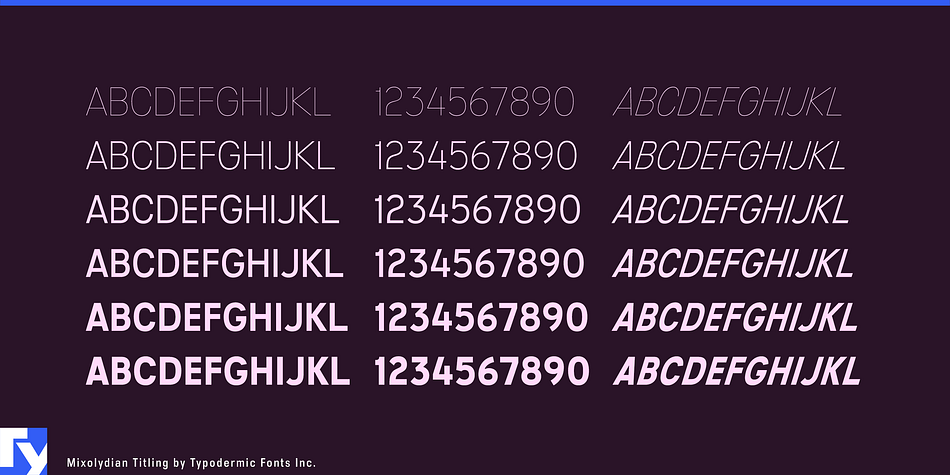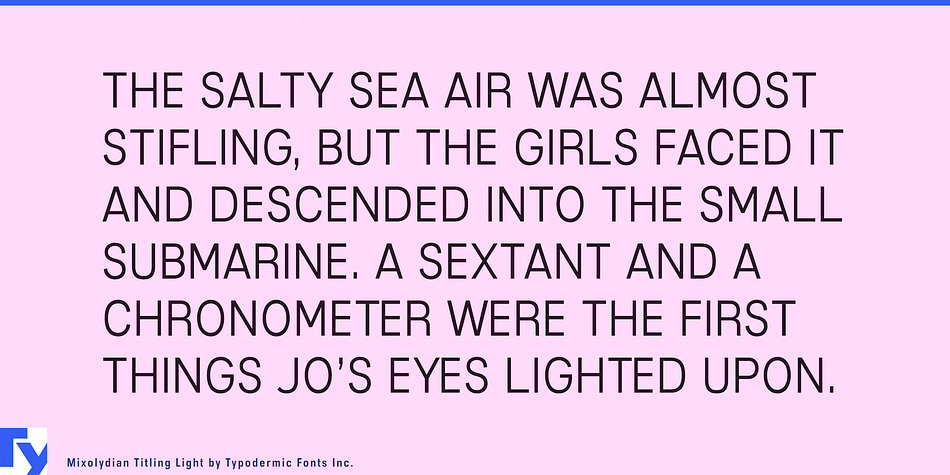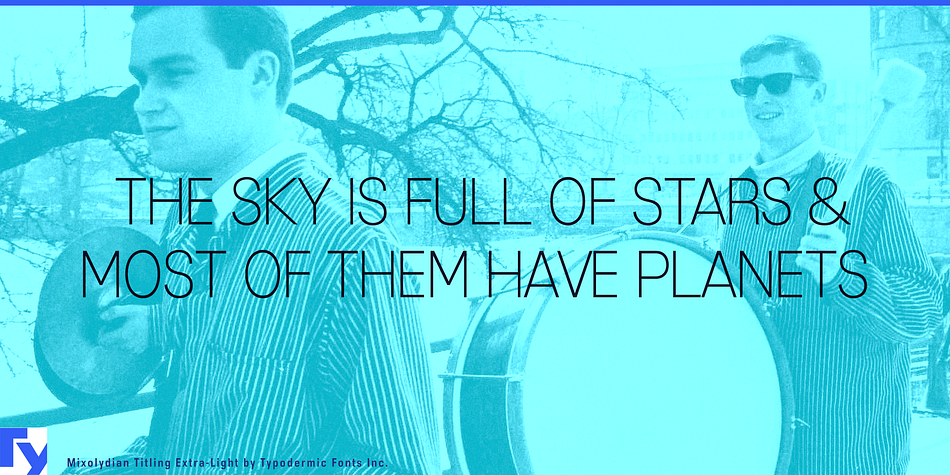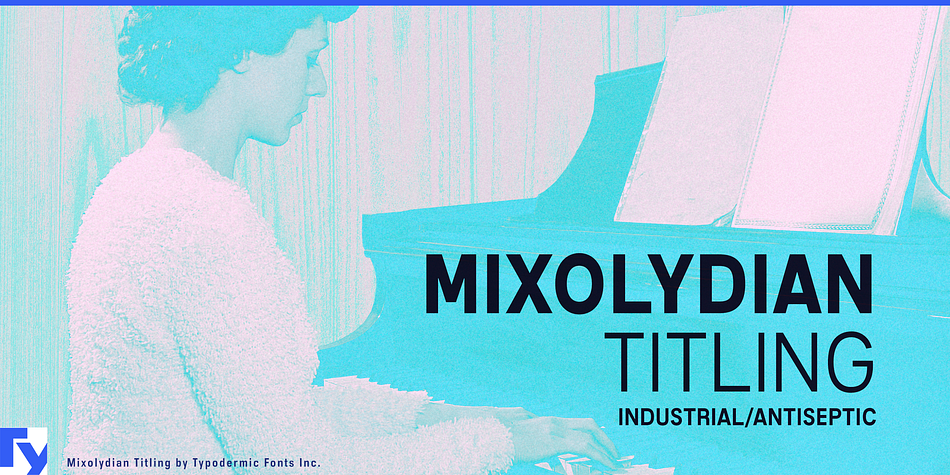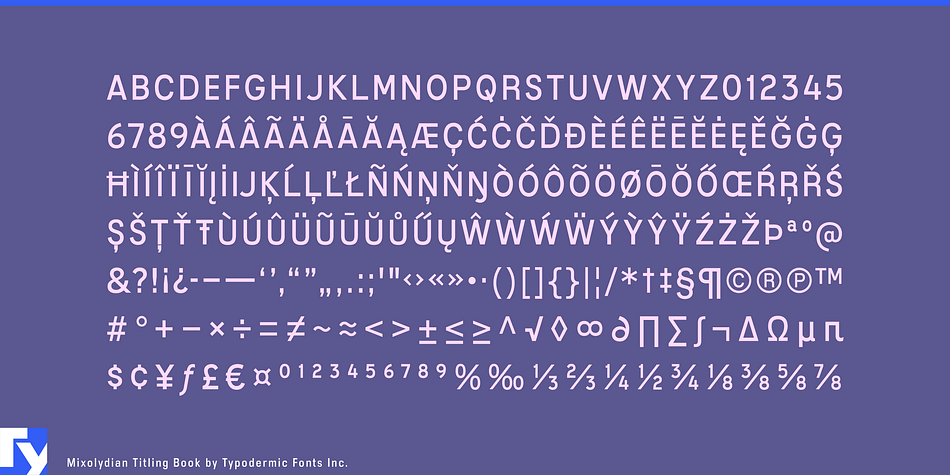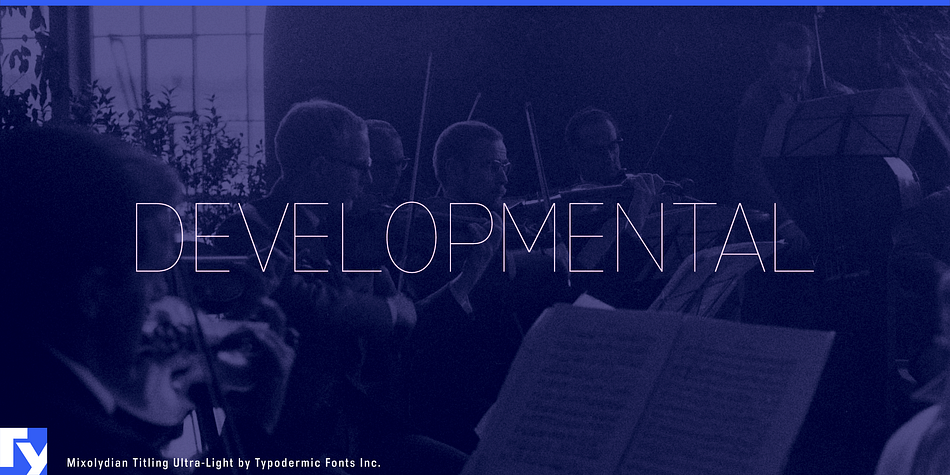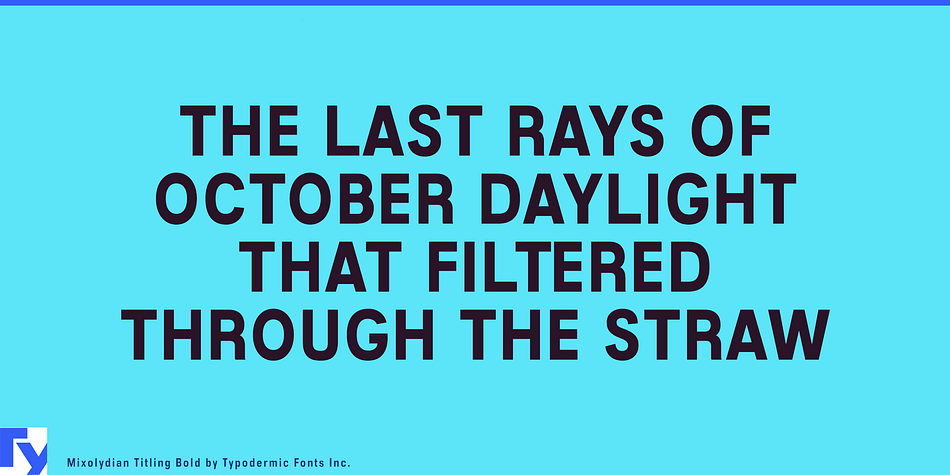
Designed by Ray Larabie, Mixolydian Titling is a display sans font family. This typeface has twelve styles and was published by Typodermic Fonts Inc.
Mixolydian is a technical sans-serif typeface. While technical fonts like DIN have a European flavor, Mixolydian was created with a distinct American style. Some of the visual aspect was acquired from the U.S. Federal Highway Administration Standard alphabet (Highway Gothic) and from architectural drafting templates.
The rhythm of each letter width is deliberately off-kilter to give it a utilitarian, scientific feel. The Mixolydian family includes six weights as well as six strongly inclined obliques. If you need lowercase for your project, check out the regular Mixolydian family.